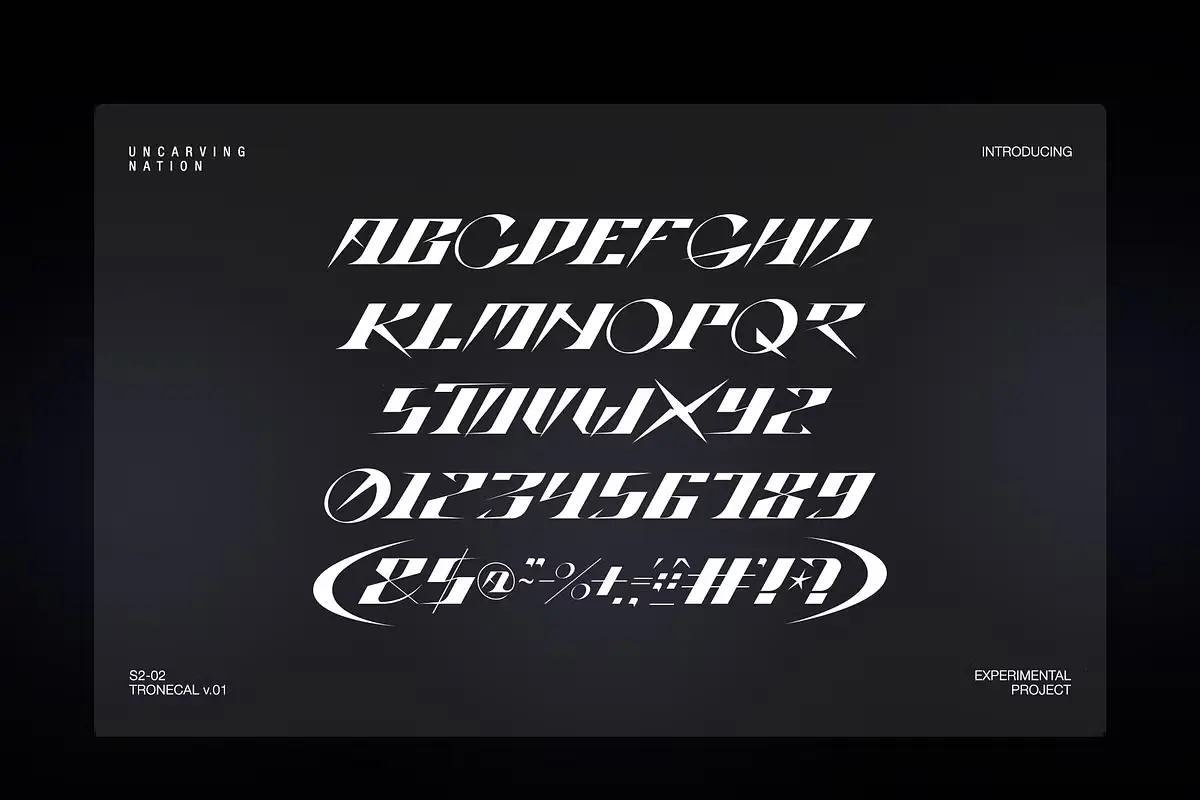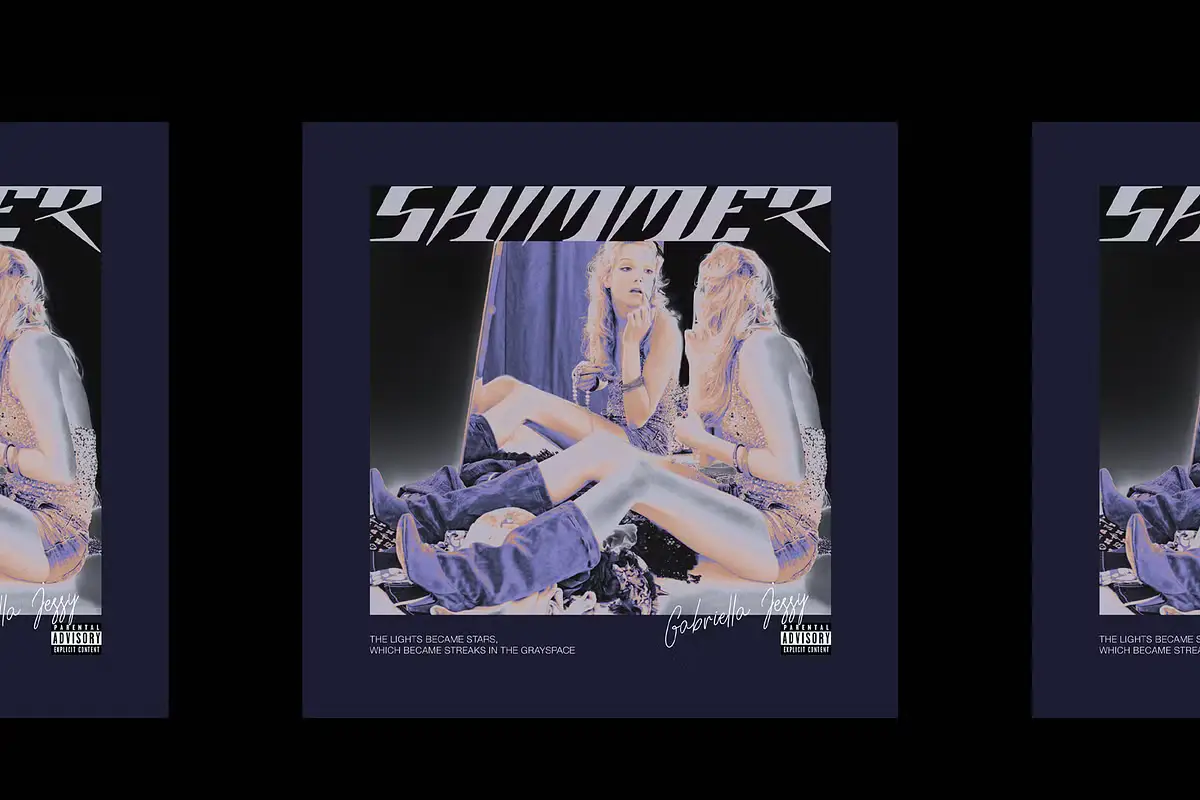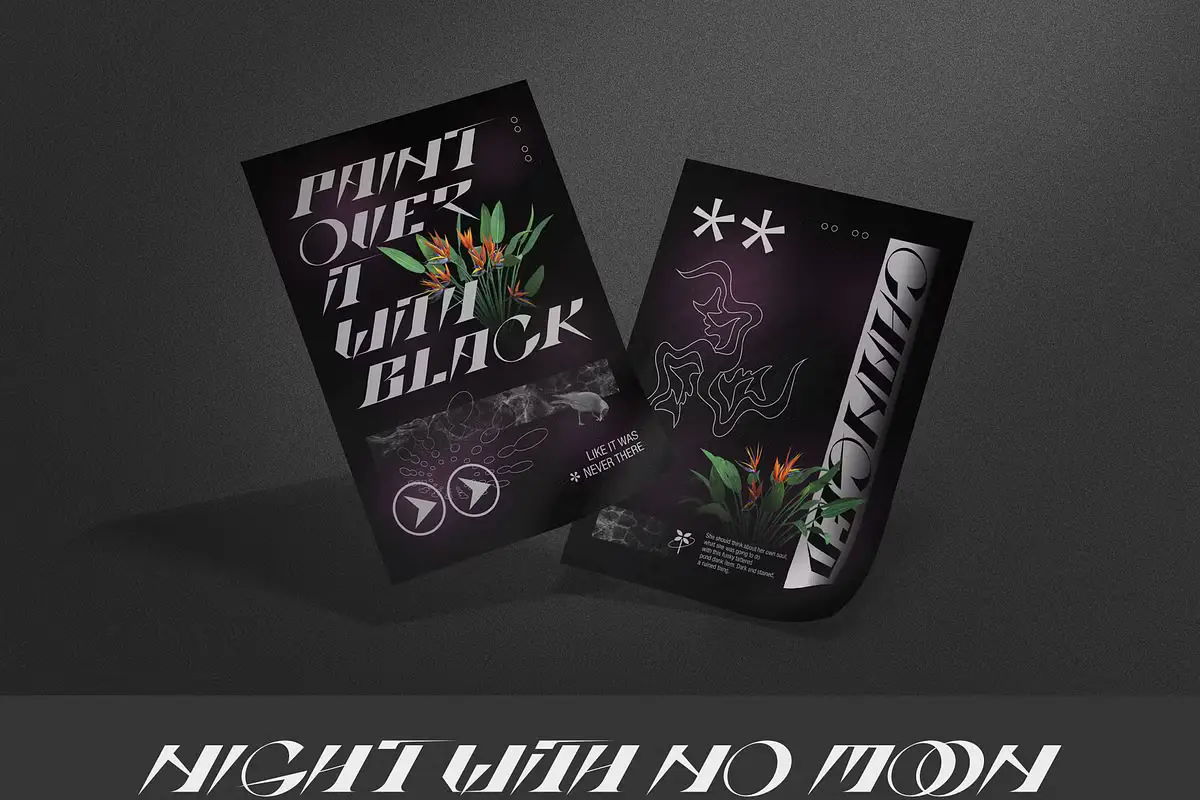
Tronecal – Display Font
Introducing Tronecal, a modern display font crafted by uncarving, featuring a unique futuristic aesthetic. This font blends simplicity with striking shapes, making it an ideal choice for projects that revolve around gaming, future technology, space exploration, virtual reality, and much more!
Tronecal stands out with its contemporary design, perfect for capturing attention in both digital and print media. Its versatile nature allows it to be utilized in various applications, from branding to promotional materials, ensuring your message is delivered with style.
- ✅ Futuristic Design → Perfect for tech and gaming projects that require a modern touch.
- ✅ Unique Shapes → Captivates audiences and enhances visual appeal.
- ✅ Easy to Read → Ensures clarity in all applications, from headlines to body text.
Tronecal is not just a font; it’s a statement. Its innovative design captures the essence of modernity, making it a trusted choice among designers and brands looking to make an impact. Whether you’re creating a futuristic game interface or a sleek tech advertisement, Tronecal will elevate your project.
Specifications
| Font Style | Display |
| Designer | Uncarving |